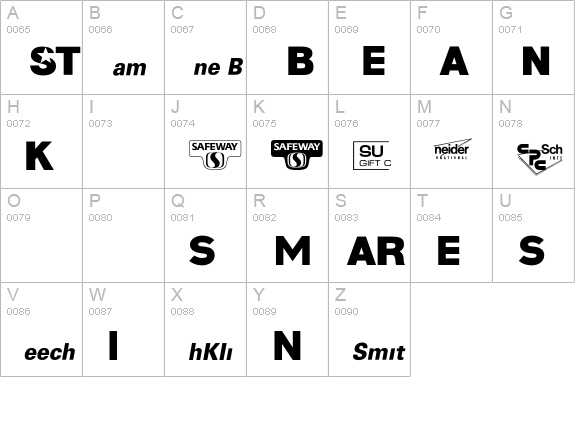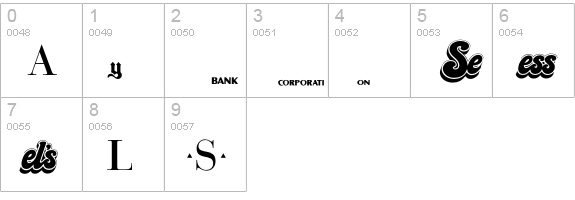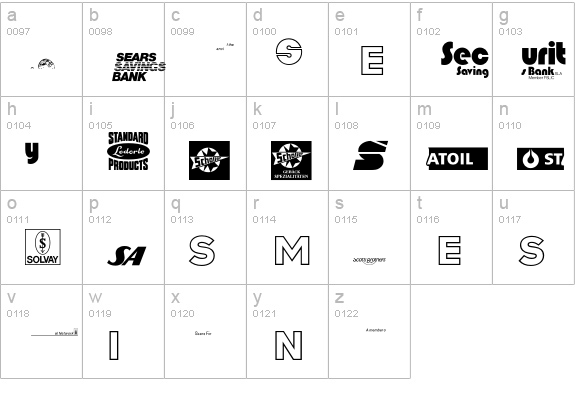
LogosCompanyP17 Font Details
LogosCompanyP17 font is a modern and stylish typeface perfect for a variety of design projects. With its sleek and clean lines, this font exudes professionalism and sophistication. Whether you are creating a logo, website design, or any other graphic material, LogosCompanyP17 font is sure to make a statement. The best part? LogosCompanyP17 font is available for free download at FontsMarket.com. This means you can easily access this high-quality font without any cost, making it a valuable addition to your font collection. Don't miss out on the opportunity to enhance your designs with the elegance and versatility of LogosCompanyP17 font.